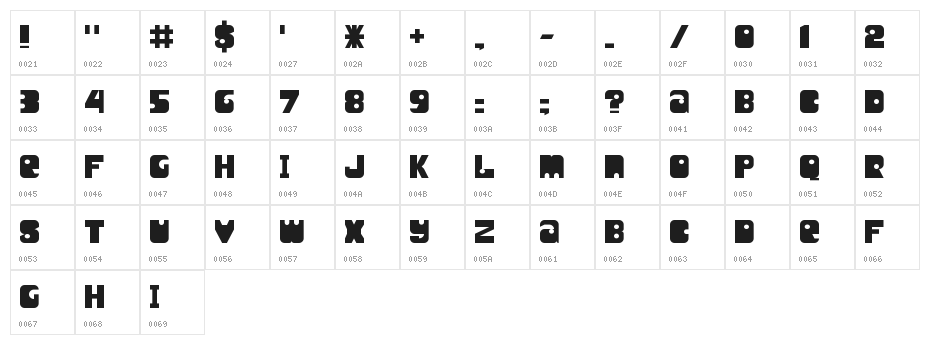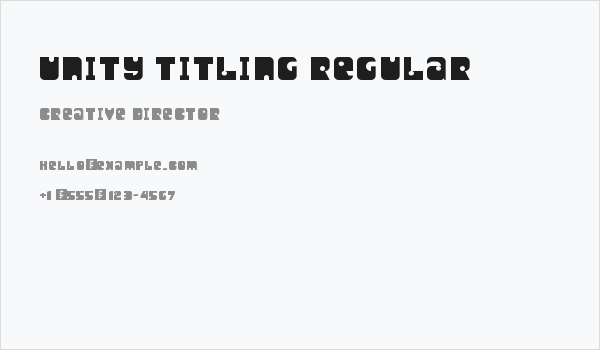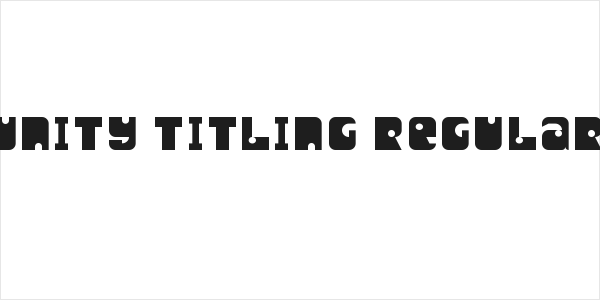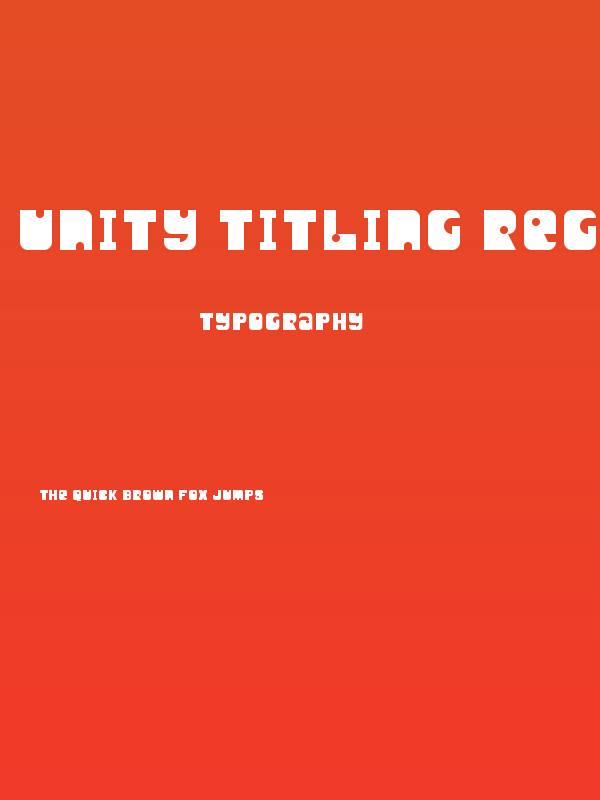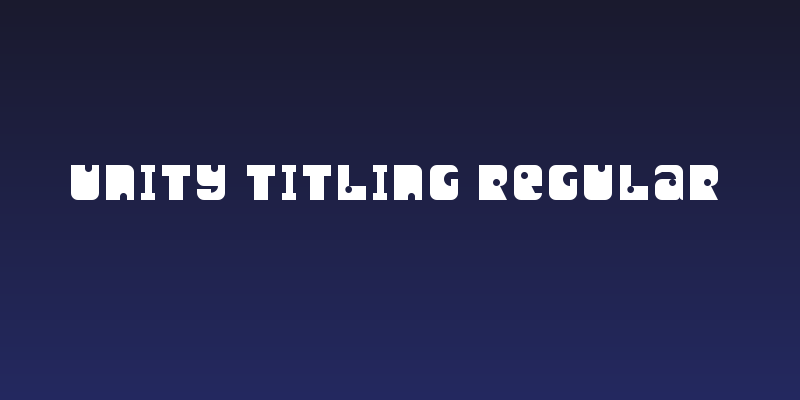
Unity Titling Regular Font
Unity Titling Regular Description
This font features a bold and geometric design with a strong presence. The characters are constructed with solid, block-like shapes that convey a sense of strength and modernity. The use of negative space within the letters adds a unique and artistic flair, making it stand out in any design. The uppercase and lowercase letters maintain a consistent style, while the numerals and special characters complement the overall aesthetic. This font is ideal for projects that require a bold statement and a contemporary look.
| Proposed Projects | Ideal for branding, posters, headlines, and any design requiring a strong, modern statement. |